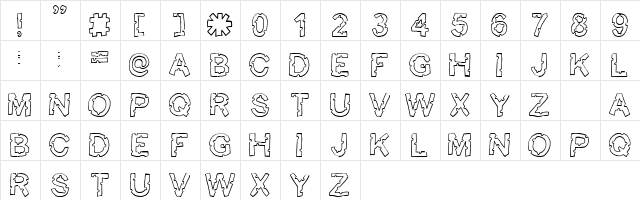
Bite me Regular
Design Context for Bite me Typeface
Bite me is a composed and adaptable typeface that performs quietly and consistently across a wide range of design contexts.